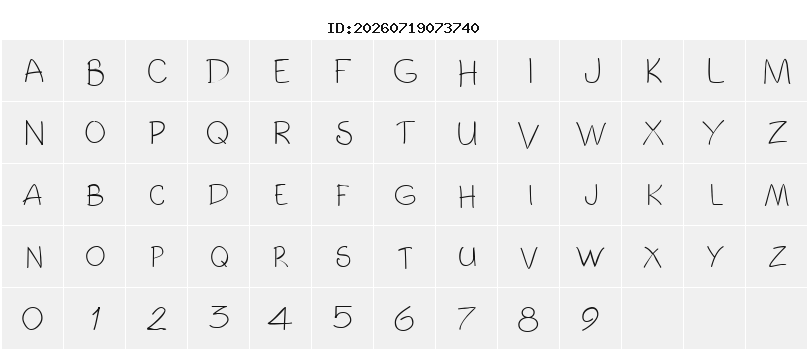
• Font Name: Comicbook
• Font ID: Altsys Metamorphosis:Toonz Regular
• Full Font Name: Comicbook Regular
• Version: Altsys Metamorphosis:1/14/94
• PostScript Name: ToonzScript
About Comicbook.ttf
Comicbook.ttf is a modern, elegant sans-serif font designed for ultimate readability and visual harmony. Perfect for branding, headlines, web design, and print materials.